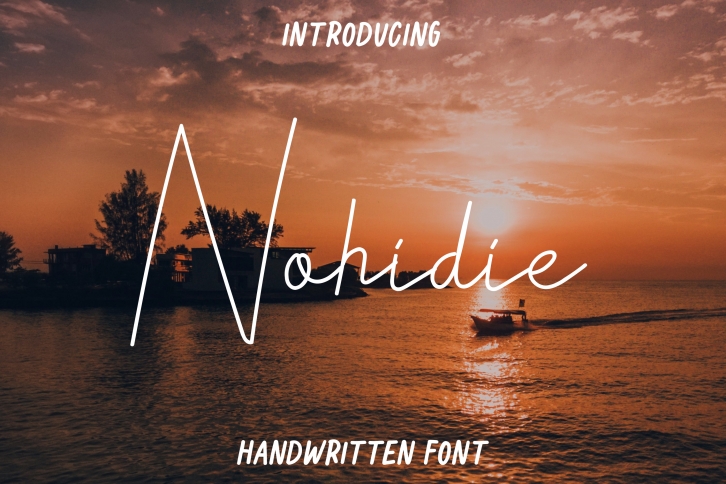
Nohidie is a slim script font.
You can use it for various projects, such as blog posts, logos, branding, ads, invitations, greeting cards, planners, photo albums, decorations, and much more.